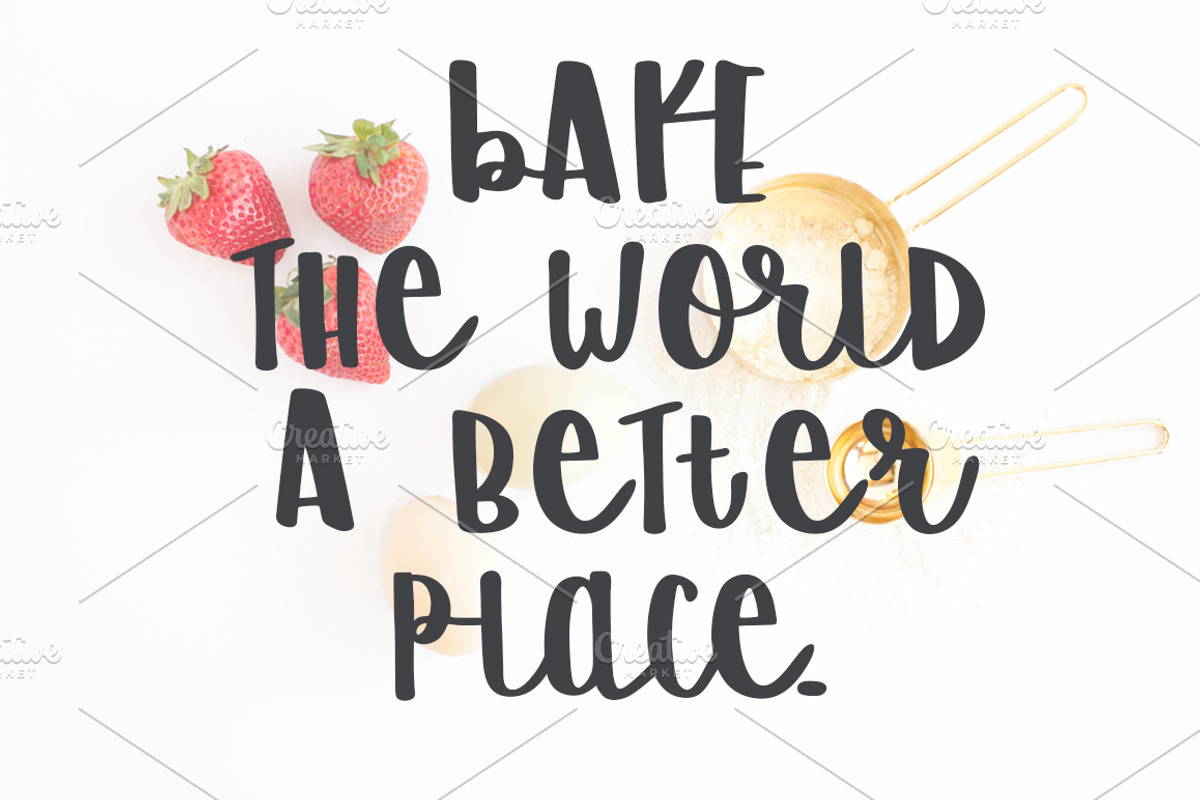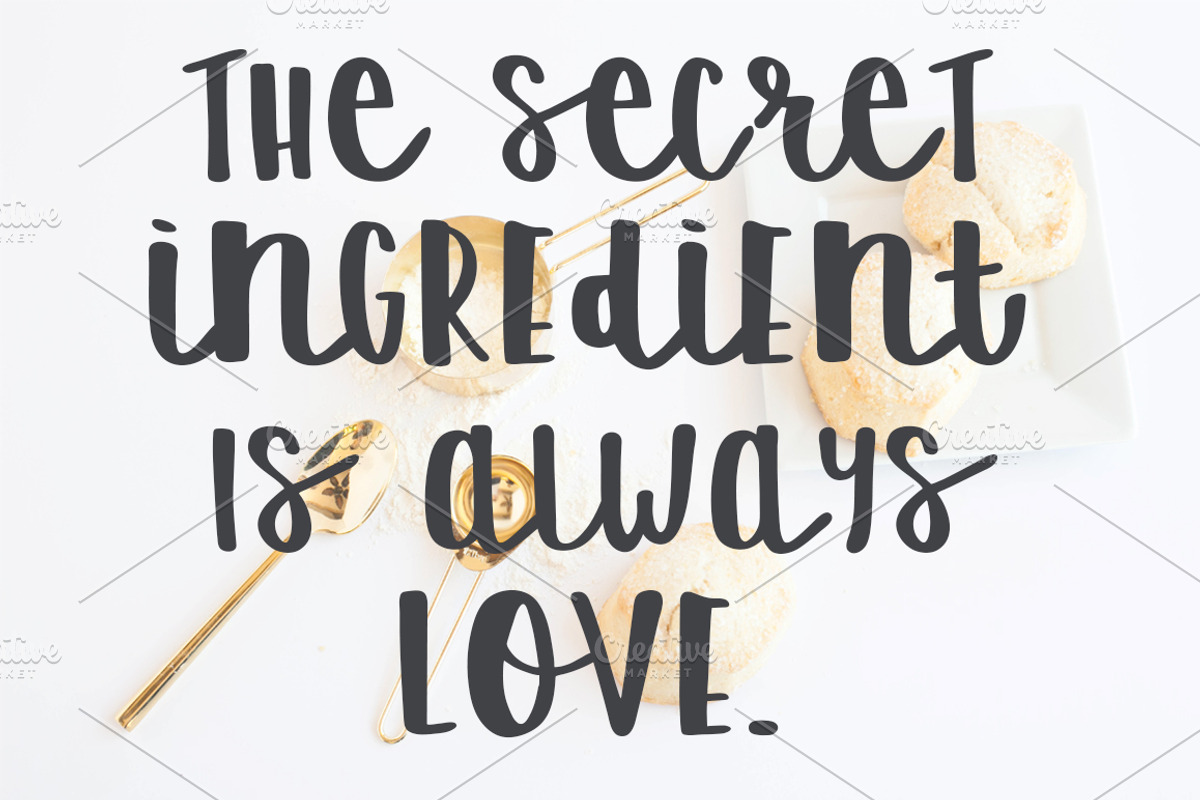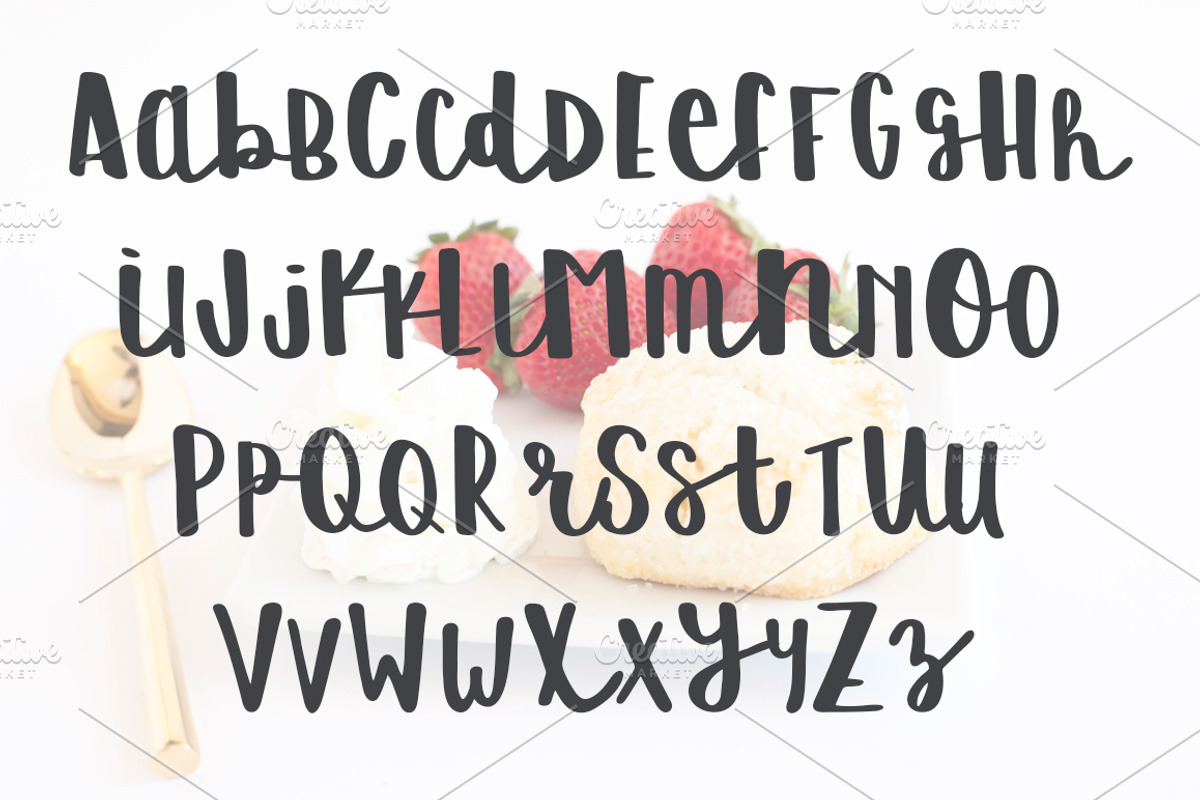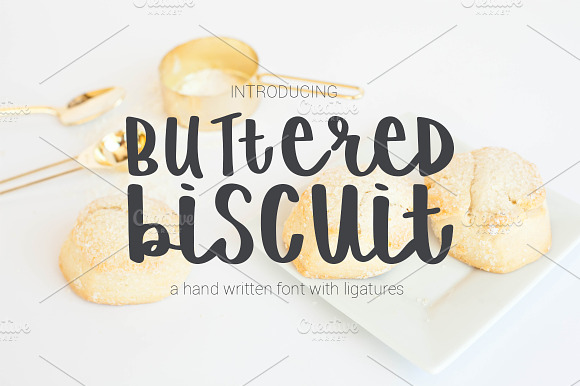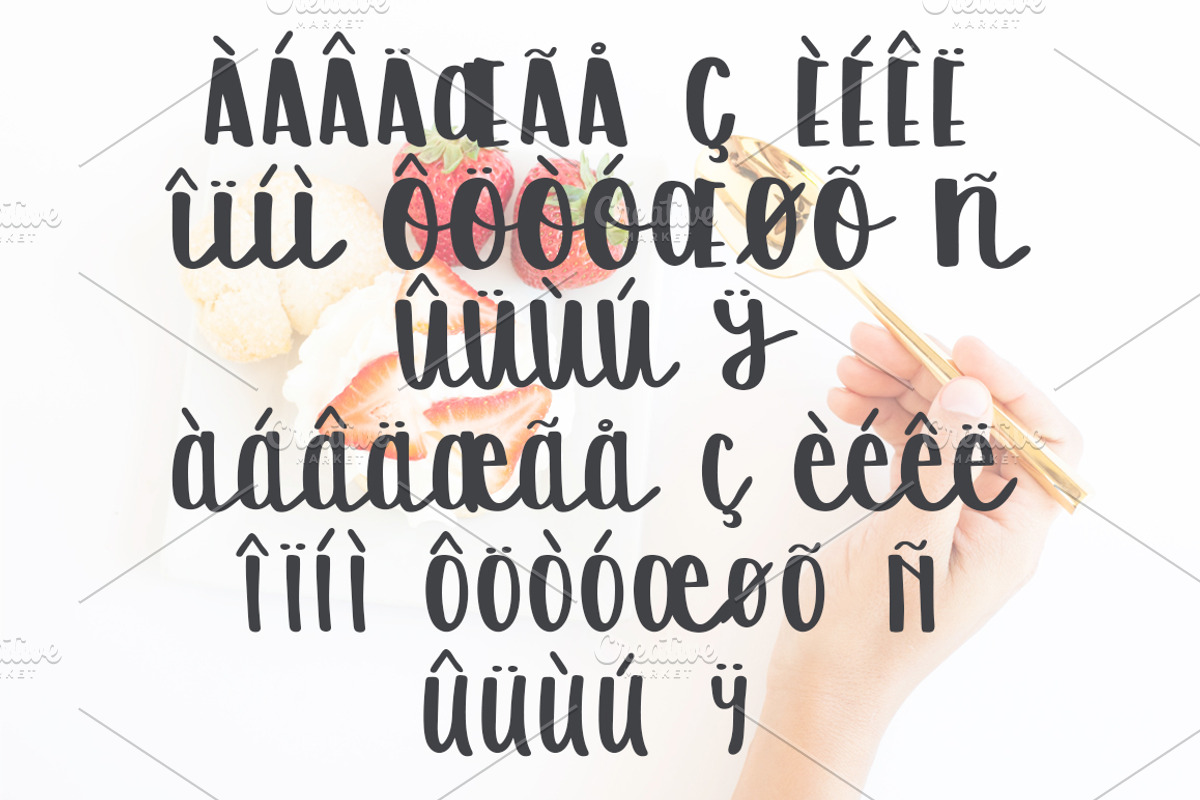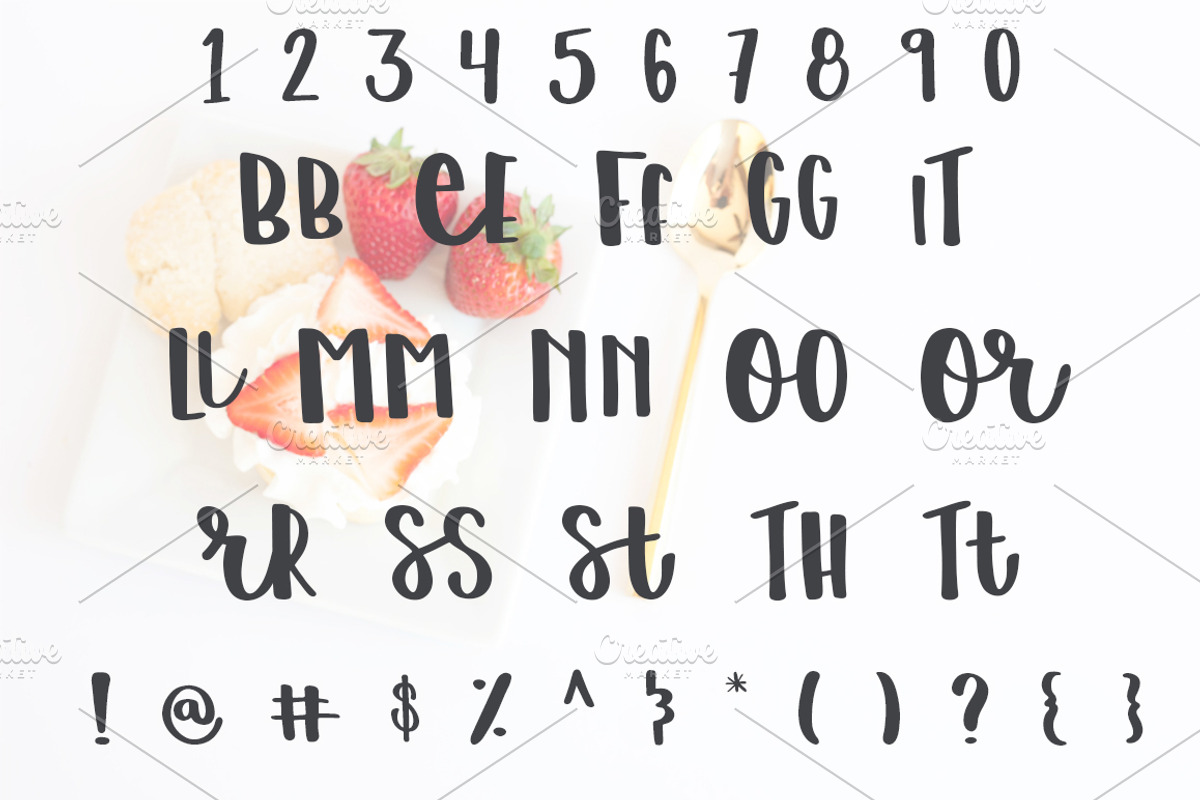
BUTTERED BISCUIT Hand Written Font
Buttered Biscuit is a funky little font: a mix of upper and lower case letters create a lively personality. Both script and sans serif, this hand written font is a smooth choice involving ligatures to spice up the type.